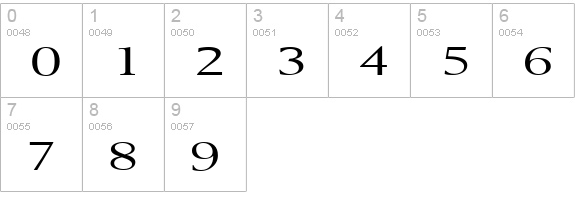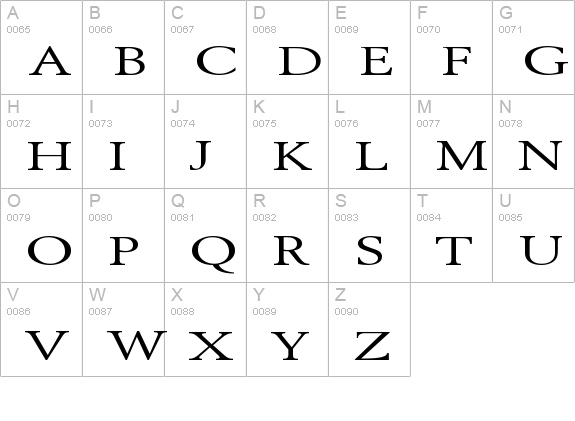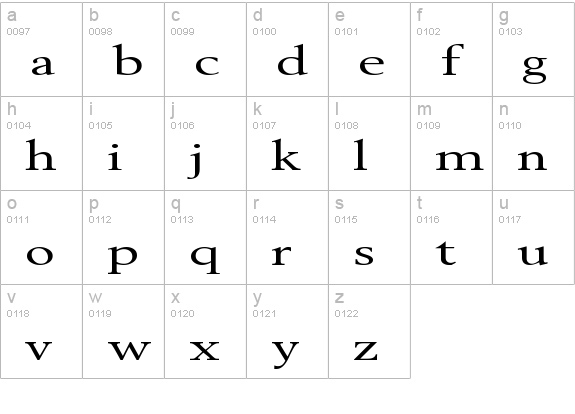
Revive 8 Extended Normal Font Details
Revive 8 Extended Normal is the standard, neutral, extended-width variant in the Revive typeface family \xE2\x80\x94 well suited to general body text, paragraphs, and standard typographic work.
Revive 8 Extended Normal font is a remarkable typeface that exudes elegance and sophistication. With its clean lines and perfectly balanced proportions, this font captures attention and leaves a lasting impression. It is the perfect choice for a wide range of design projects, from invitations and logos to posters and brochures. The Revive 8 Extended Normal font offers a harmonious blend of modernity and classic design elements. Its extended letterforms give it a unique and distinctive look, making it stand out from the crowd. This font is versatile and adaptable, lending itself well to both formal and informal contexts. One of the best things about Revive 8 Extended Normal font is that it is available for free download at FontsMarket.com. This means that designers and creatives can freely access and utilize this stunning typeface, without having to worry about any cost constraints. Whether you are a professional graphic designer or a hobbyist looking to add a touch of elegance to your personal projects, Revive 8 Extended Normal font is a must-have. Its timeless appeal and freely available nature make it an invaluable asset for any creative endeavor. So why wait? Head over to FontsMarket.com and download this exquisite font today!